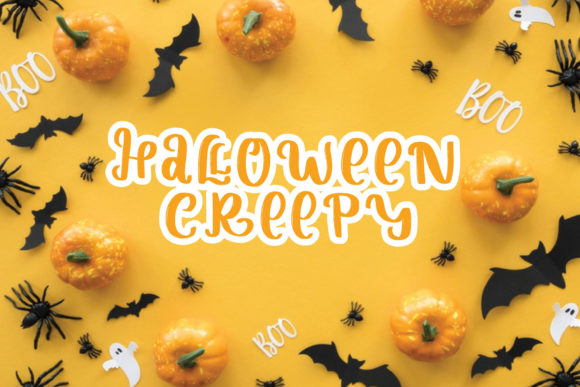
Unleash your spooky creativity with Halloween Creepy, the ultimate display font that'll cast a spell on your designs! This haunting yet playful font is perfect for conjuring up eye-catching Halloween invitations, spine-chilling posters, or adding an eerie touch to your branding.
With Halloween Creepy, you'll have a spellbinding font that'll make your designs jump off the screen. Its playful nature makes it suitable for a variety of projects, from party invitations and Halloween decorations to spooky logos and website designs.
Step into the realm of the supernatural with Halloween Creepy. Its unique letterforms will add a touch of magic to your designs, captivating your audience and leaving them spellbound. As the perfect addition to your typographic arsenal, this font will haunt your creations with its enchanting charm.
Let Halloween Creepy be your guide as you explore the world of Halloween-themed designs. Its friendly and spooky appearance will bring smiles and chills to those who lay their eyes upon your creations.